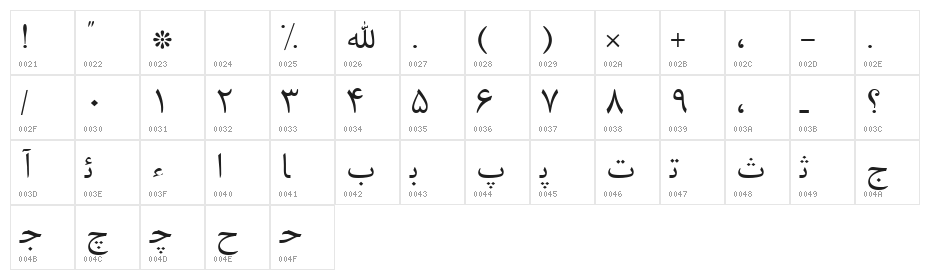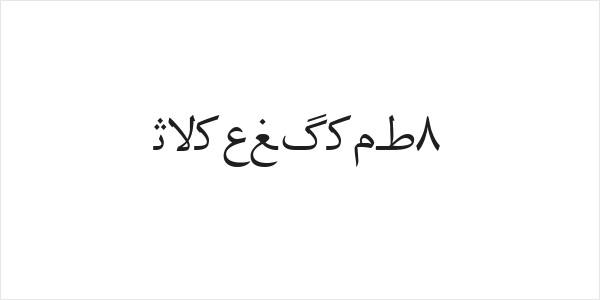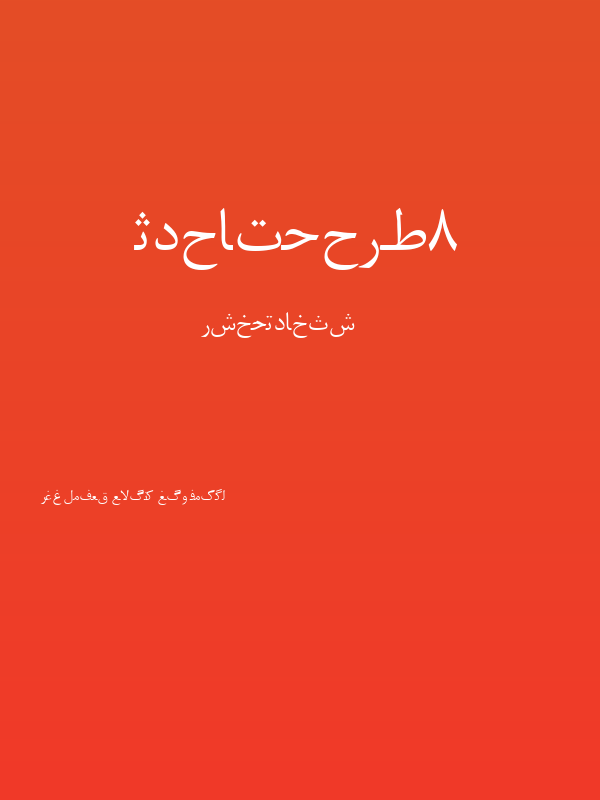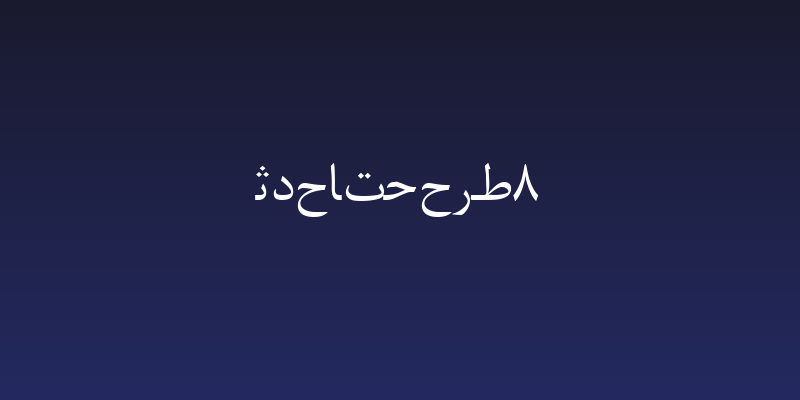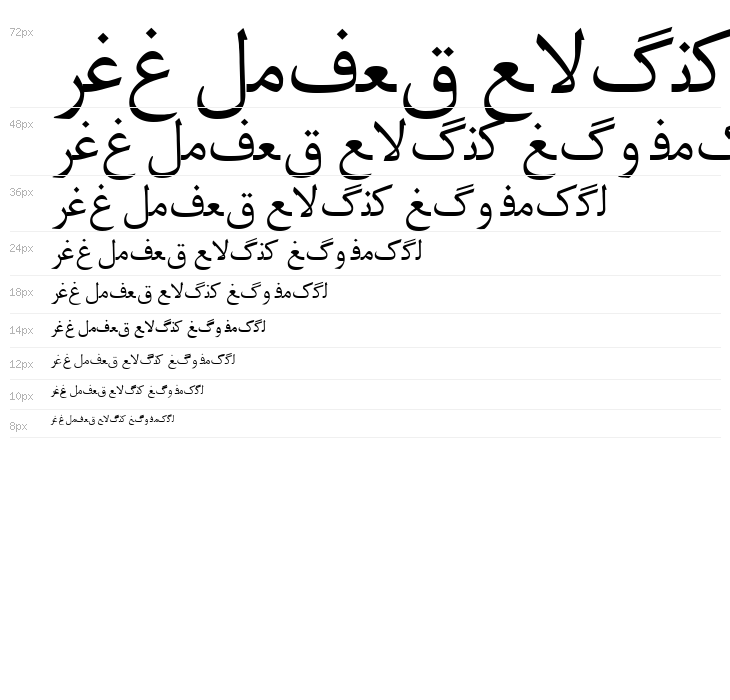
Irnafont_8 Font
Irnafont_8 Description
This font features a modern and clean design with smooth curves and balanced proportions, making it highly readable. The characters are well-spaced, providing a harmonious flow that enhances legibility. The strokes are consistent in thickness, offering a medium contrast that adds a subtle elegance to the overall appearance. The font includes a full set of Arabic characters, numerals, and a variety of punctuation marks, making it versatile for different types of content. Its contemporary style is suitable for both digital and print media, ensuring clarity and aesthetic appeal.